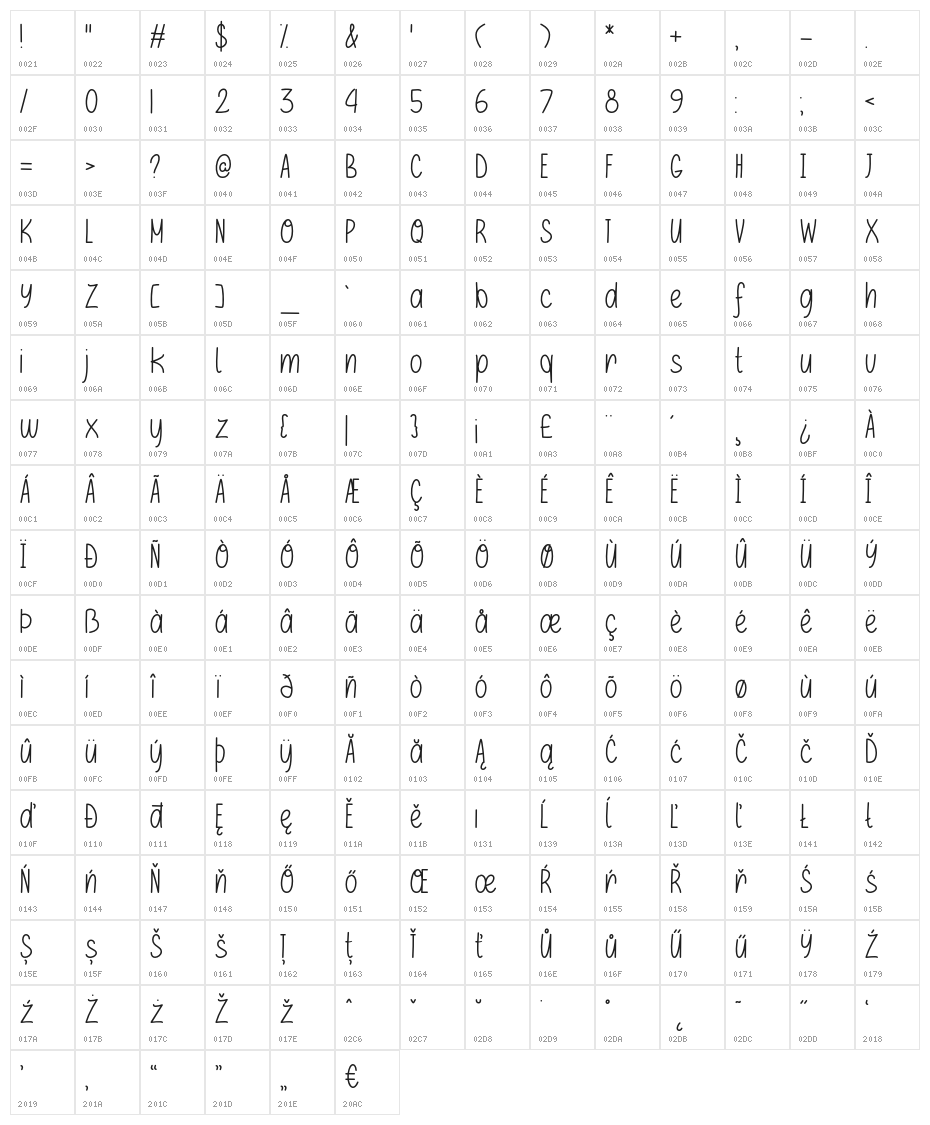
IfOnly Font
IfOnly Description
This font features a playful and casual handwritten style, characterized by its tall, narrow letters and slightly uneven baseline, giving it a whimsical and approachable feel. The strokes are smooth and consistent, with a slight variation in thickness that adds to its informal charm. The uppercase letters are slightly taller than the lowercase, maintaining a uniform width throughout. The numerals and special characters follow the same playful aesthetic, making them blend seamlessly with the alphabet. This font is ideal for projects that require a personal touch or a friendly, informal tone.
| Proposed Projects | Greeting cards, children's books, casual branding, social media graphics, and personal blogs. |